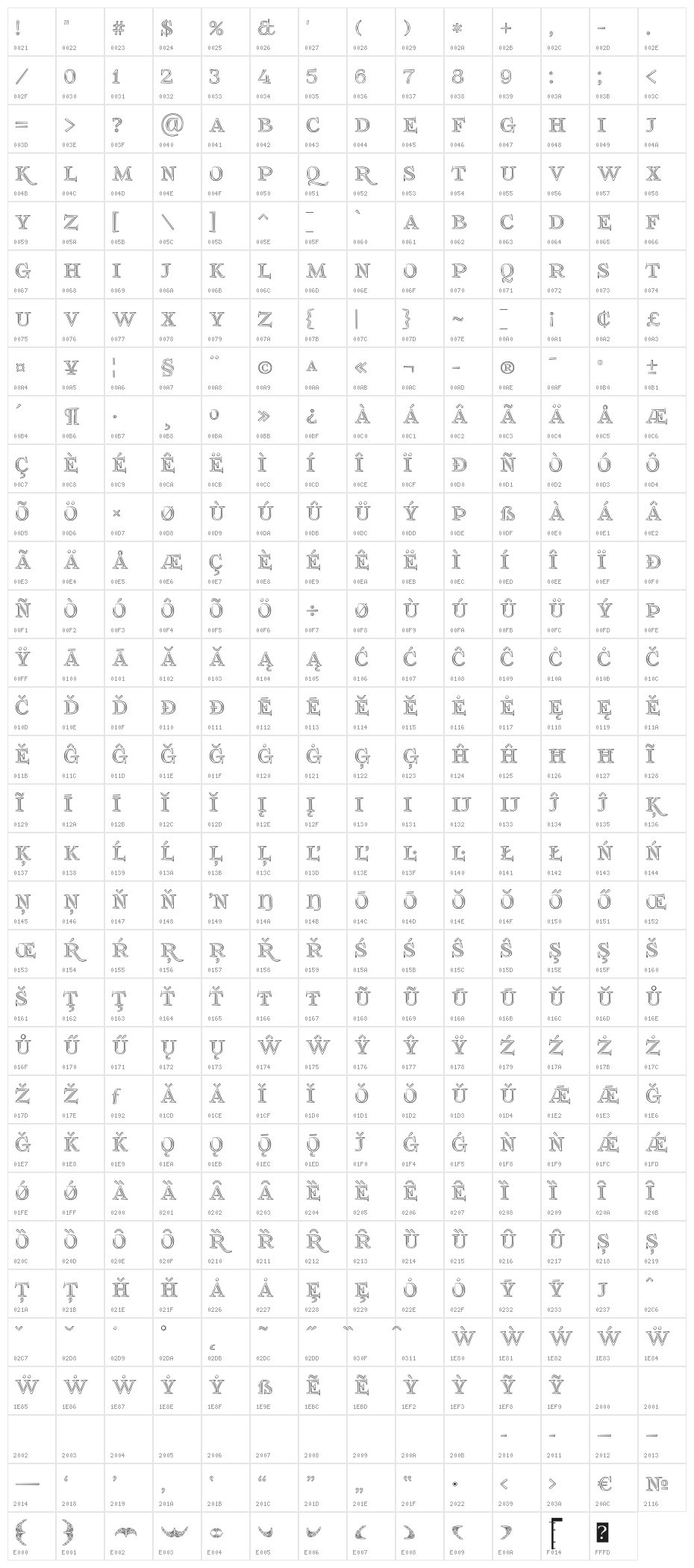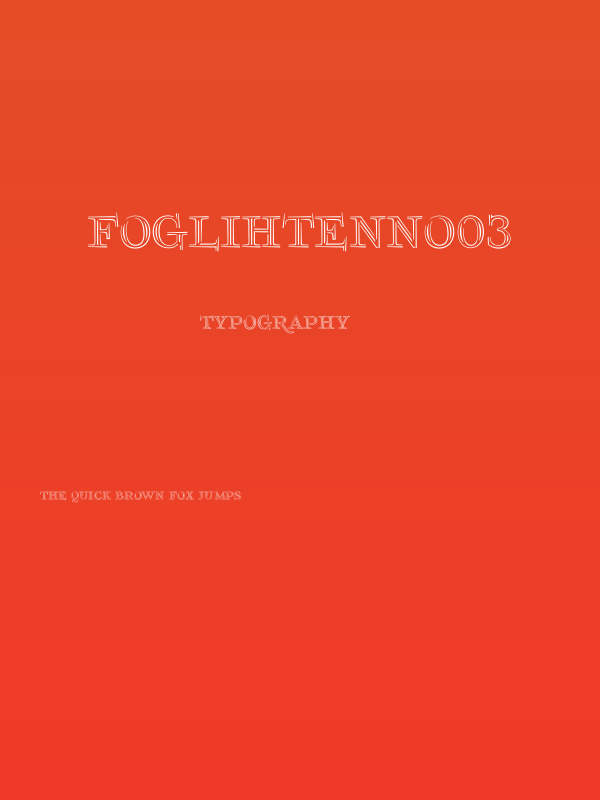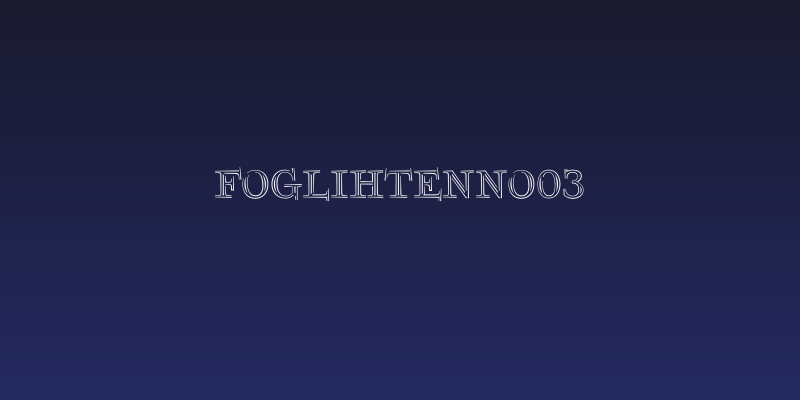
FoglihtenNo03 Font
FoglihtenNo03 Description
This font features a decorative and elegant design with intricate line work and a classic serif style. Each character is outlined with a double line, adding depth and a sense of sophistication. The uppercase letters are bold and commanding, while the lowercase letters maintain a consistent style, ensuring readability. The numerals are distinct and match the overall aesthetic, making them suitable for various applications. Special characters are included, maintaining the decorative theme. This font is ideal for projects requiring a touch of elegance and formality.
| Proposed Projects | Ideal for wedding invitations, luxury branding, editorial headlines, and formal event programs. |